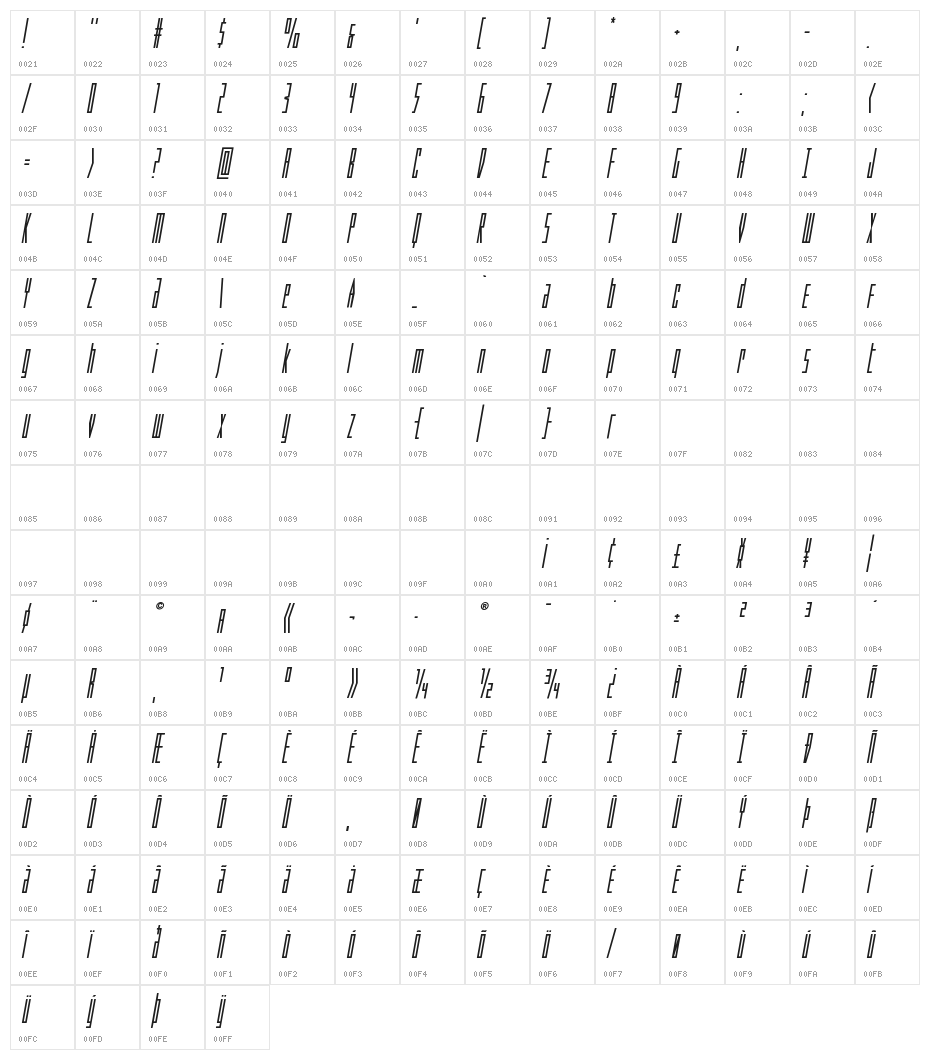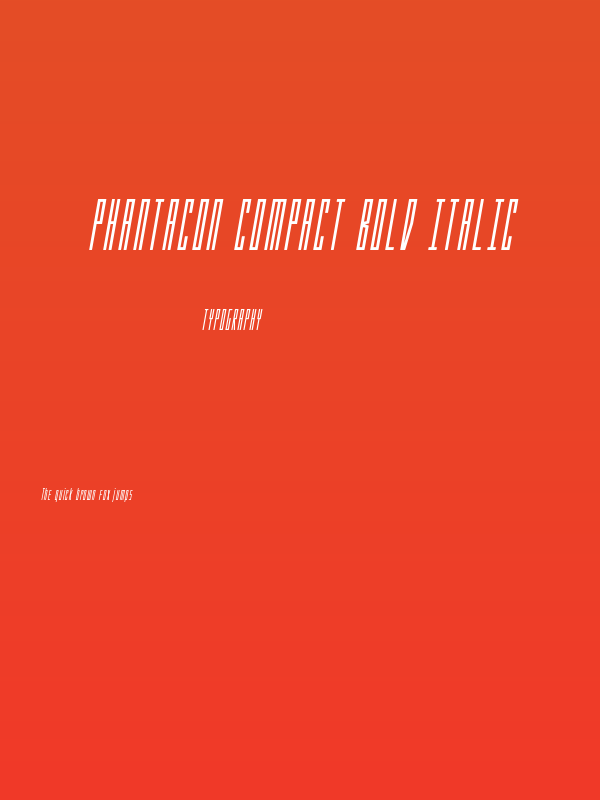
Phantacon Compact Bold Italic Font
Phantacon Compact Bold Italic Description
This font features a bold and italicized style with a compact and narrow structure. The characters are elongated and have a distinct slant, giving them a dynamic and energetic appearance. The uppercase and lowercase letters maintain a consistent height, contributing to a uniform look. The numerals and special characters follow the same stylistic approach, ensuring cohesion across all glyphs. This font's sharp angles and clean lines make it suitable for modern and edgy designs, while its boldness ensures readability and impact.
| Proposed Projects | Ideal for branding, posters, headlines, and any project requiring a modern and impactful typeface. |